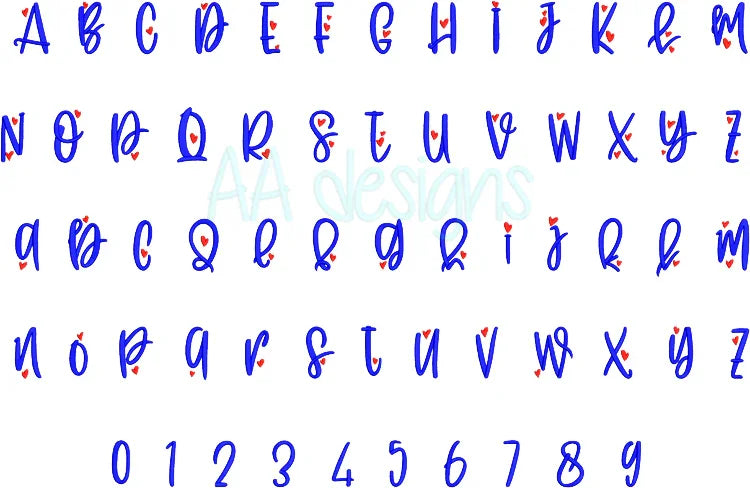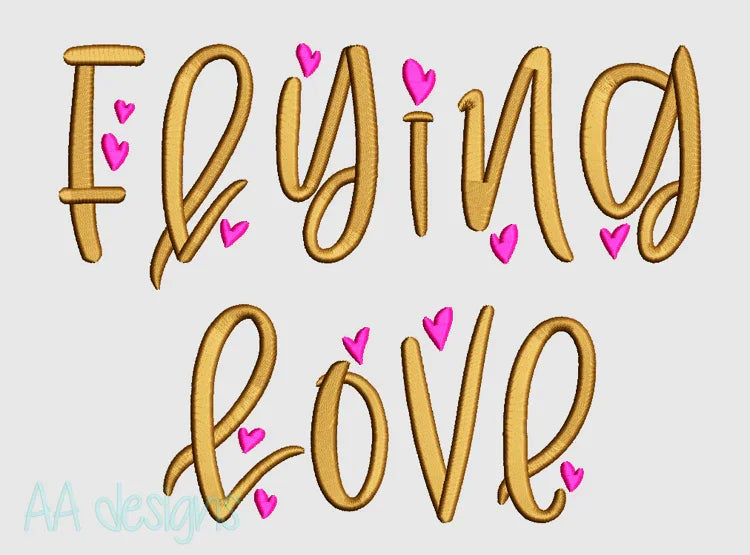
Add a romantic, flowing touch to your embroidery projects with the Flying Love Font. Perfect for wedding gifts, Valentine’s Day items, baby keepsakes, personalized apparel, and more.
- ✅ Full character set: uppercase, lowercase, numbers 0–9